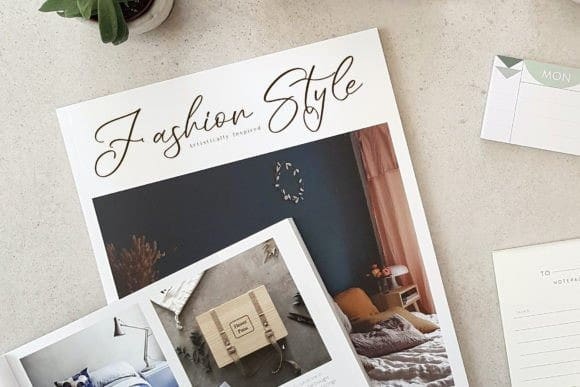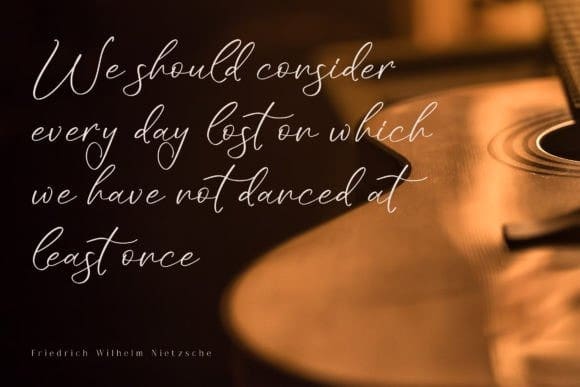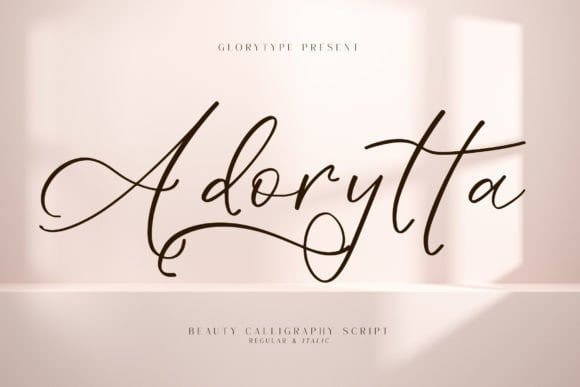
Adorytta Handwritten Font
Adorytta Handwritten Font is a modern, delicate, and flowing handwritten font. Use this font for various design ideas such as mugs, t-shirt designs, eye-catching logo designs, greeting cards, and many more. This font will add a cute touch to your designs.